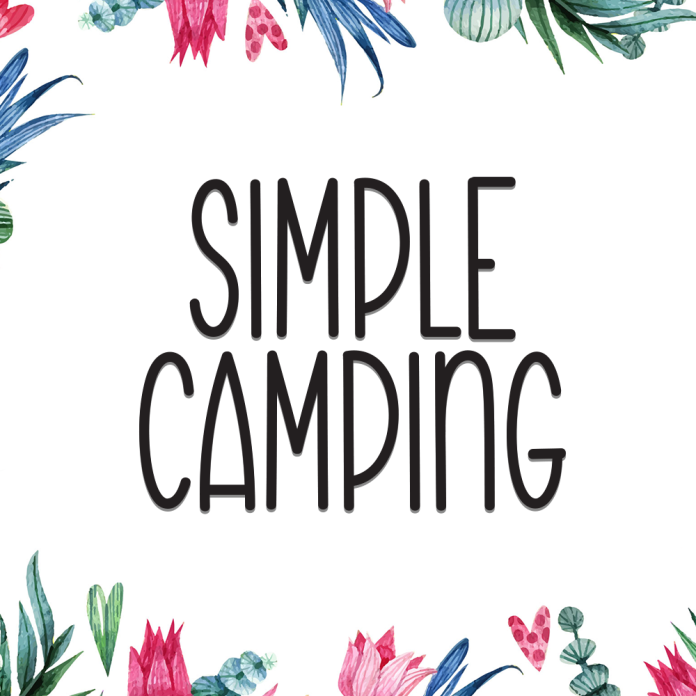
Simple Camping is a cheerful and playful display font inspired by outdoor adventures and cozy nights under the stars. Its bold and friendly letterforms evoke the spirit of camping, storytelling by the fire, and the joy of nature.
Perfect for adventure posters, kids’ projects, summer camp materials, and branding that needs a rustic yet lighthearted feel.
Bold and fun display style
Great for outdoor-themed designs, summer events, and children’s graphics
Easy-to-read characters with a casual, handmade touch
Bring the joy of the outdoors to your design with Simple Camping.